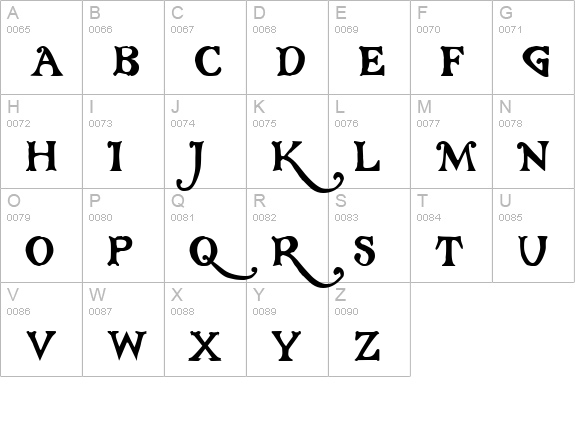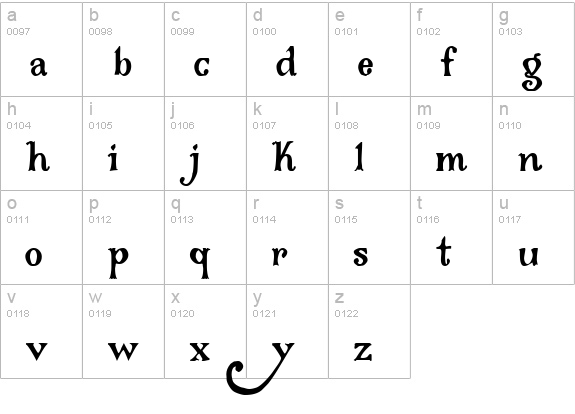
Gloriana Font Details
Gloriana font is a timeless and elegant typeface that exudes sophistication and charm. With its graceful curves and balanced proportions, Gloriana is perfect for adding a touch of class to any design project. Whether you're creating invitations, logos, or branding materials, this font will elevate your work to new heights. What's even better is that Gloriana font is available for free download at FontsMarket.com. This means you can easily access this stunning font and use it in your projects without any cost. Don't miss out on the opportunity to enhance your designs with the beauty of Gloriana font - download it today and let your creativity shine!